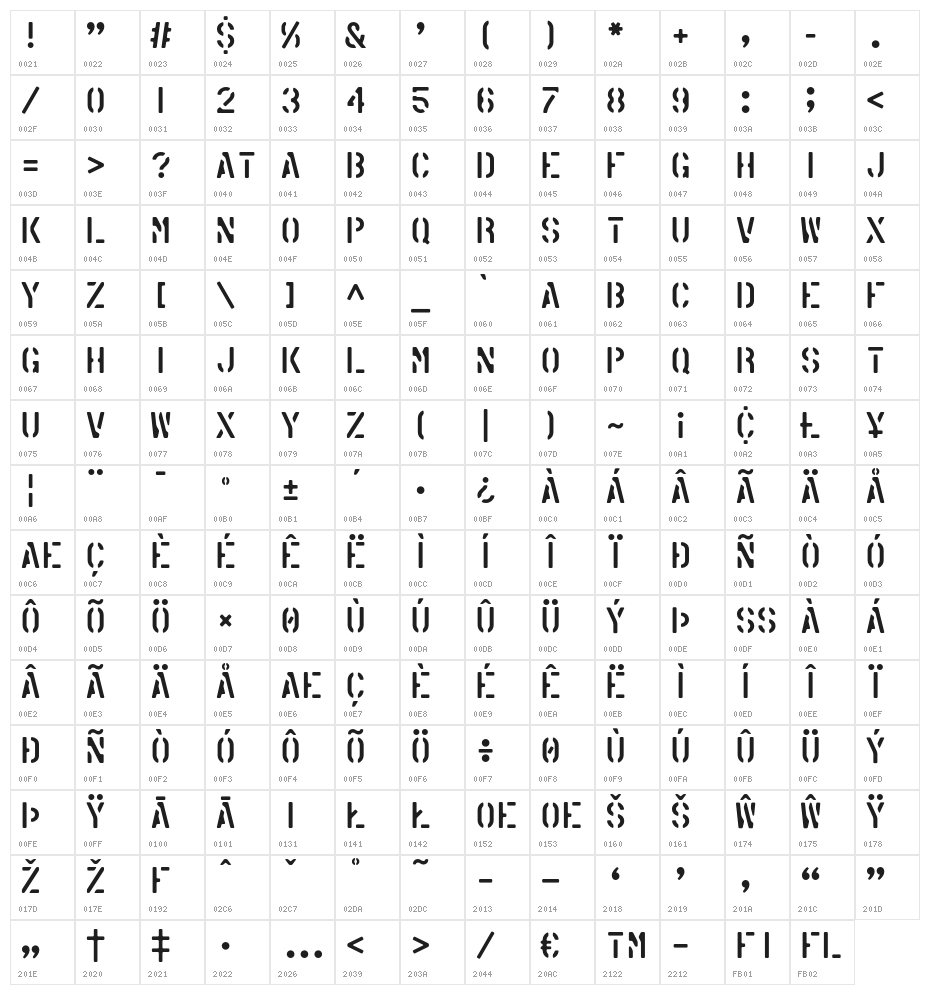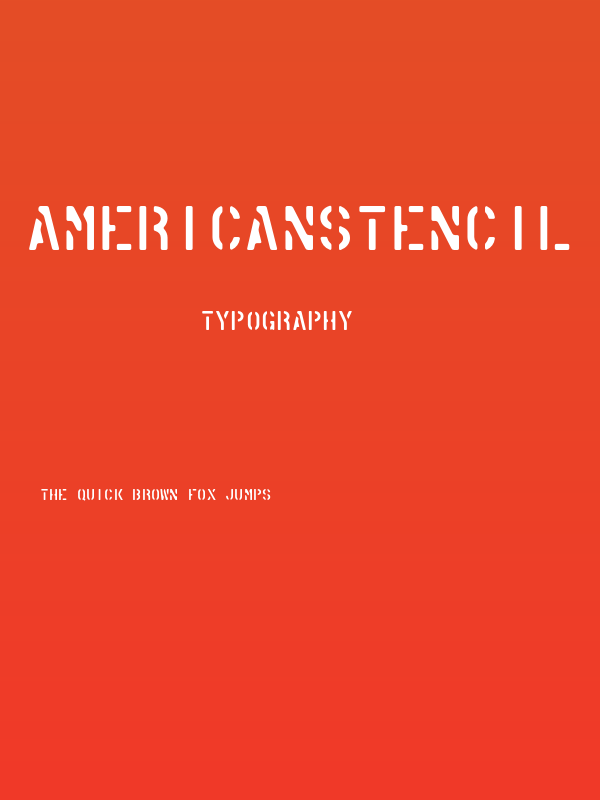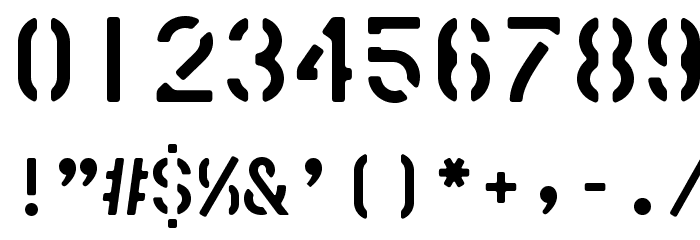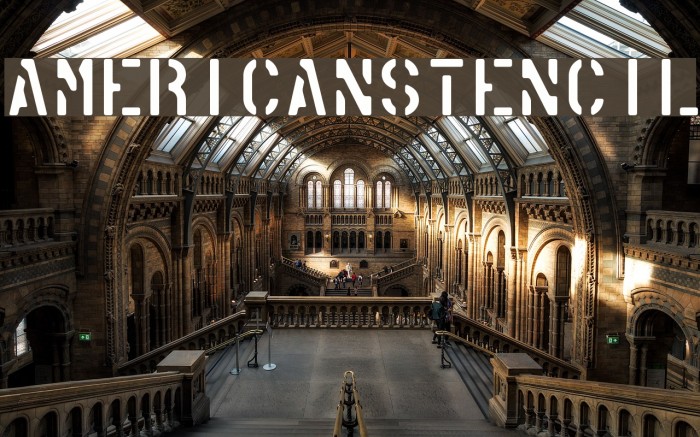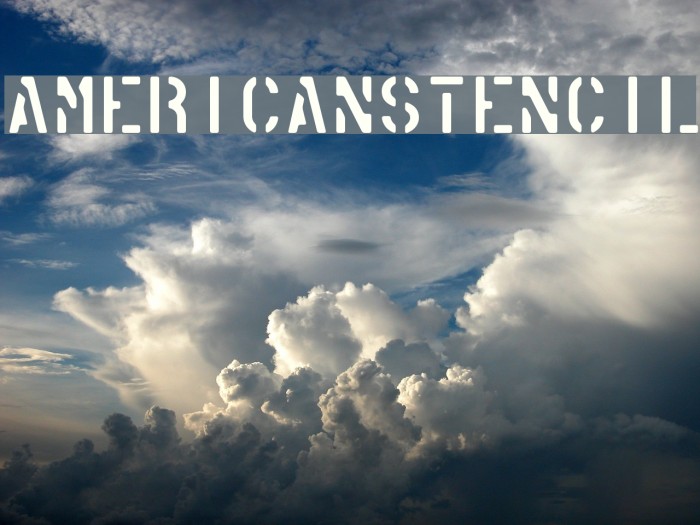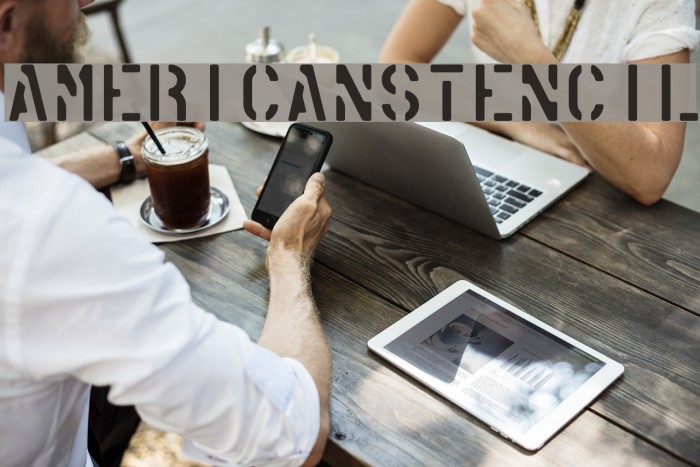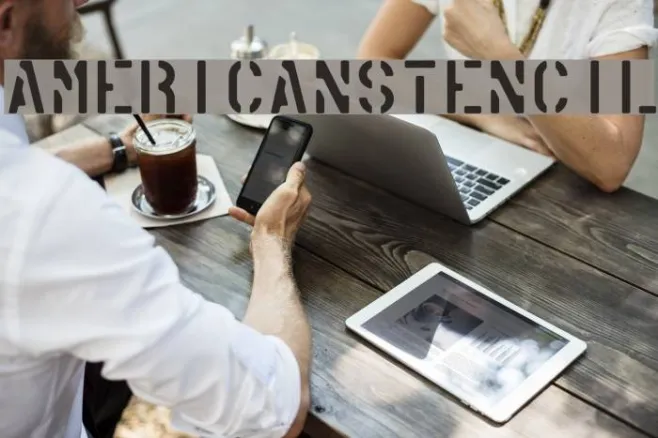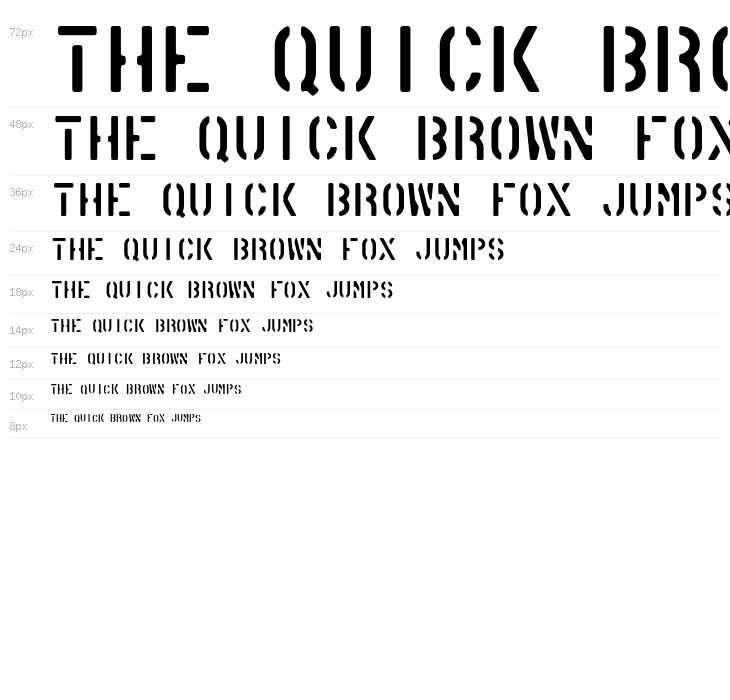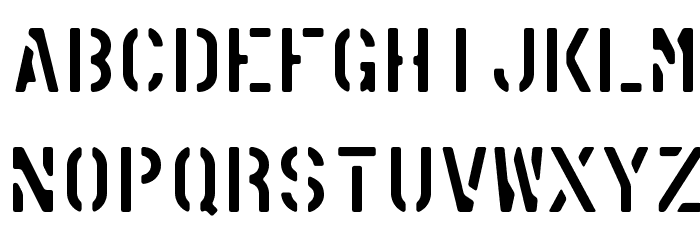
AmericanStencil Font
AmericanStencil Description
This font features a bold, stencil-like design with clear, geometric shapes and distinct cutouts that give it an industrial and utilitarian feel. The uppercase letters are strong and assertive, making them ideal for attention-grabbing headlines. The numbers and special characters maintain the same boldness and clarity, ensuring consistency across all text. The font's design is reminiscent of military or industrial stencils, often used for labeling and signage. Its robust and straightforward appearance makes it suitable for projects that require a strong visual impact.
| Overall Style | Industrial, Utilitarian |
| Use Case | Headlines, Logos, Signage |
| Proposed Projects | Ideal for military-themed designs, industrial signage, posters, and branding that requires a strong, impactful presence. |